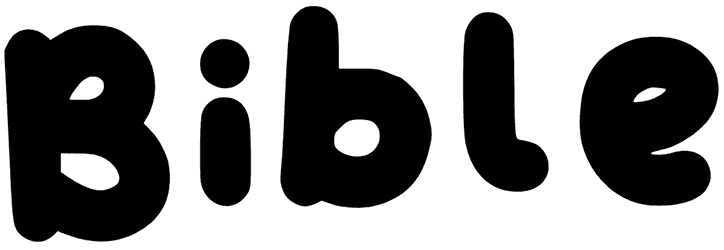
Bible Font
Add Bible if you feel your toolbox has room for a new font. This handwritten font has thick letters with a personal touch that gives a bold look to your content and is used in a wide range of design projects with a modern and luxurious look.
You can also combine this marker font with thinner options in RB to create balance in the content and create creative designs in the form of posters, text ads, and banners.